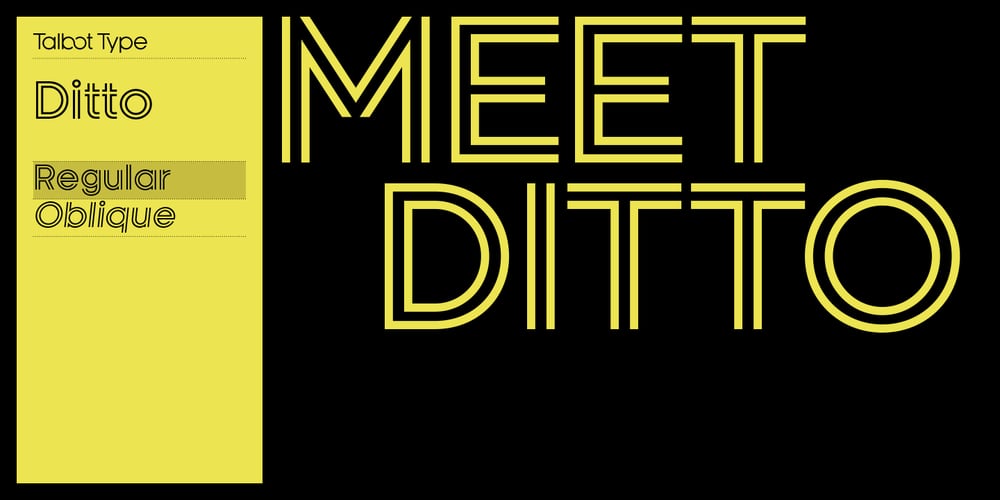
Ditto Font Family was designed by Adrian Talbot and published by Talbot Type. Ditto contains 2 styles and family package options. Ditto is a confident and striking, geometric, inline display face. Based on Talbot Type Kamerik, both Kamerik and Kamerik Text make ideal text fonts to accompany Ditto. Ditto includes all accented characters for Western and Central European languages.